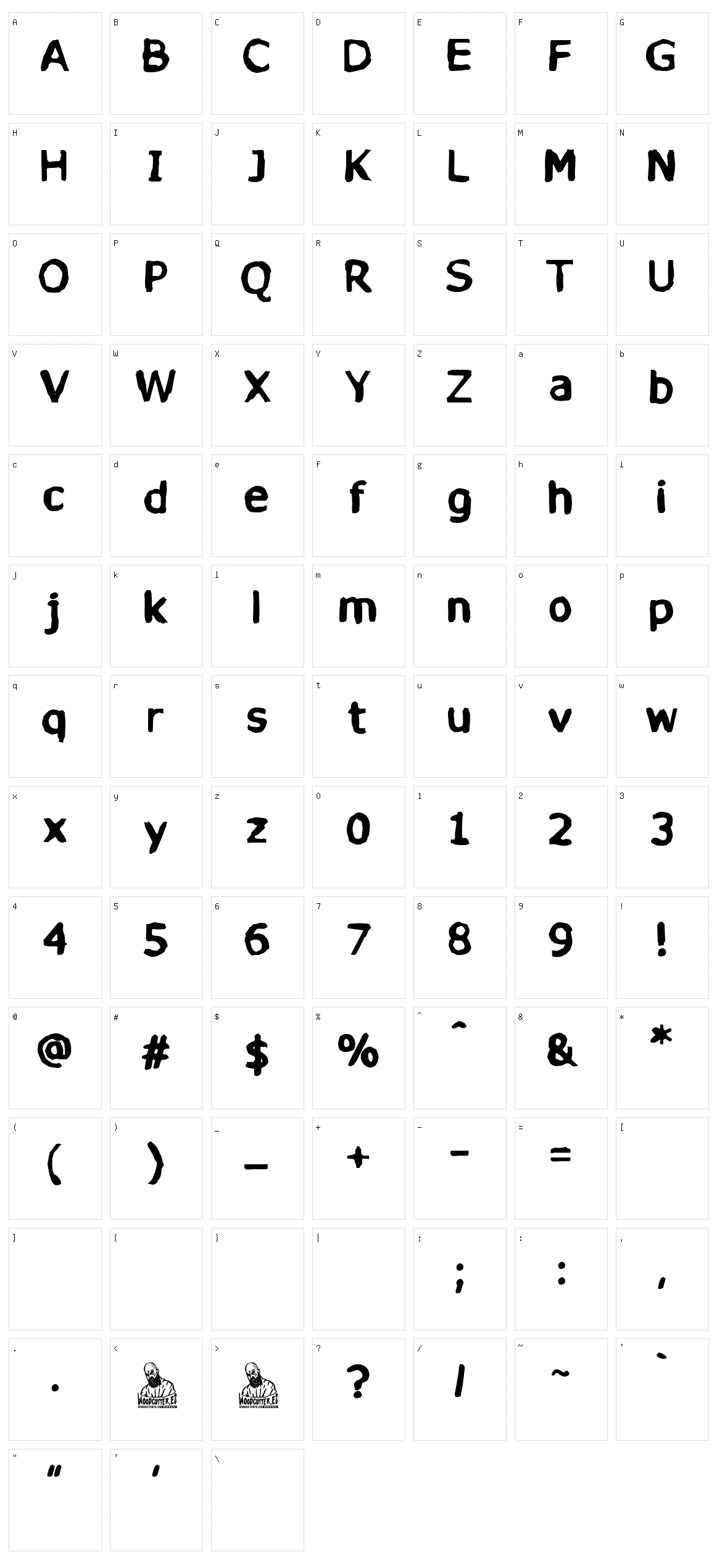
José Luis López Vázquez
The free font José Luis López Vázquez is carefully designed by Woodcutter, showcasing a thoughtful balance of creativity and usability and falls under the Eroded font style. When you download the ZIP file, it contains only 68.08 KB of font files, making it lightweight and quick to download. Please review the license details below to understand permitted usage and distribution rights. If license information is not available, we recommend using this font for personal projects only or contacting the author directly for commercial usage permissions.